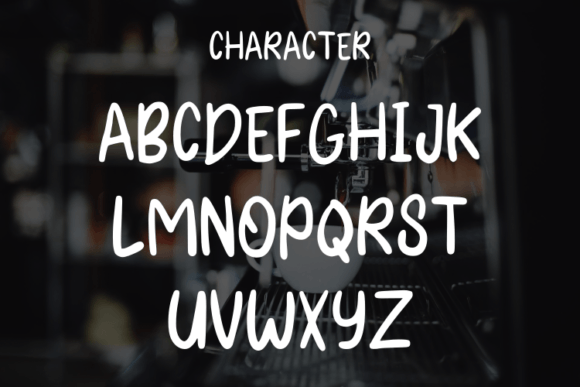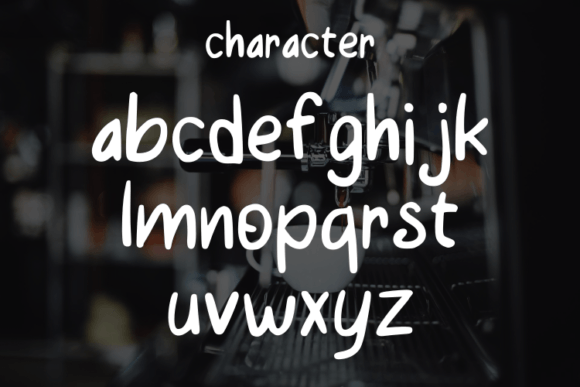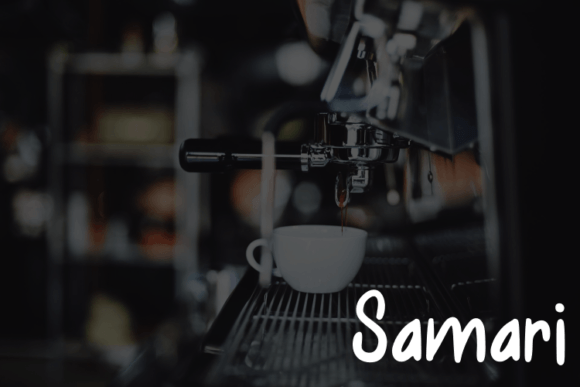
Introduction to Samari Font
Have you ever been brainstorming ideas for a creative project, staring blankly at a blank canvas, trying to spark that perfect design moment? For many of us, it’s that one elusive spark that sets our imagination ablaze, and suddenly, the possibilities are endless. For designers, this moment is especially crucial – it’s where the magic happens, and a well-designed project comes to life.
One essential tool in every designer’s arsenal is a high-quality typeface that elevates their work to the next level. Enter the Samari Font, a beautiful script typeface that exudes elegance and sophistication. With its simple yet modern style, this versatile font is perfect for a wide range of design applications, from luxurious logo designs to book and movie titles, and even fashion brands and magazines.
Key Features of Samari Font
- Unique, modern design with a minimalist aesthetic, perfect for modern branding and graphic design projects
Honest Review: Samari Font
As a designer, I’m always on the lookout for high-quality design resources to elevate my creative projects. The Samari Font has caught my attention, and I’m excited to share my honest review.
- ✨ Elegant and modern design aesthetic that’s perfect for minimalist projects
- ✨ Clear and readable font with a wide range of weights and styles
Any limitations:
- ⚠️ Limited character set, which may not be suitable for complex projects
- ⚠️ May not be as versatile as other fonts, but still great for specific design styles
Overall, I’m impressed with the Samari Font. Its sleek design and versatility make it a great addition to any design resource collection. While it may have some limitations, it’s definitely worth considering for your next creative project.
Samari Font is ideal for creative projects that require a high-quality, transparent background design resource. It’s perfect for logos, business cards, and social media graphics. You can also use it for free download and personal projects, such as invitations, flyers, and brochures.
Tips for Getting the Most Out of Samari Font
To get the most out of Samari Font, experiment with different font sizes, colors, and styles to create unique and eye-catching designs. You can also combine it with other design elements, such as images and shapes, to add depth and interest to your project.